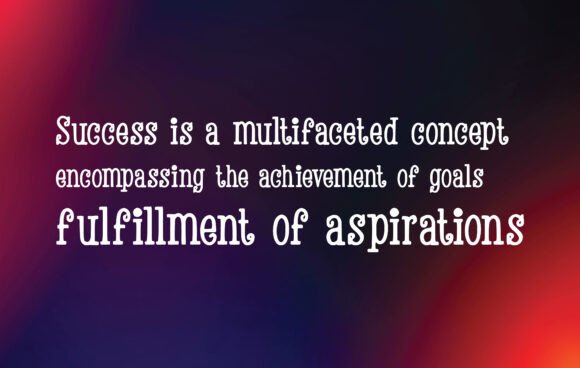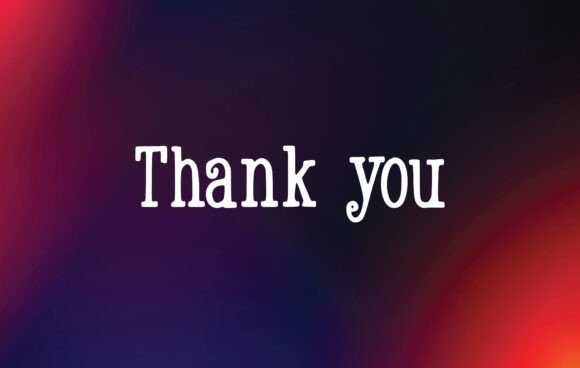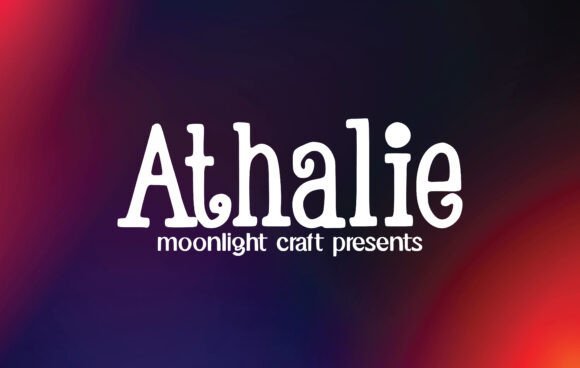
Introduction to Athalie Font
This font is made to be a go-to favoriteβ€”versatile, eye-catching, and ready to bring your creative ideas to life.
It’s clear and easy to read, making it a great choice for both titles and body text Whether you’re designing magazine covers, t-shirts, social media posts, branding, wedding invitations, or greeting cards, this font fits right in with style and personality.
Key Features of Athalie Font
Why Choose Athalie Font?
Athalie Font offers exceptional quality and versatility, making it a valuable addition to your design toolkit. Whether you’re creating for personal projects or commercial use, Athalie Font delivers professional results.